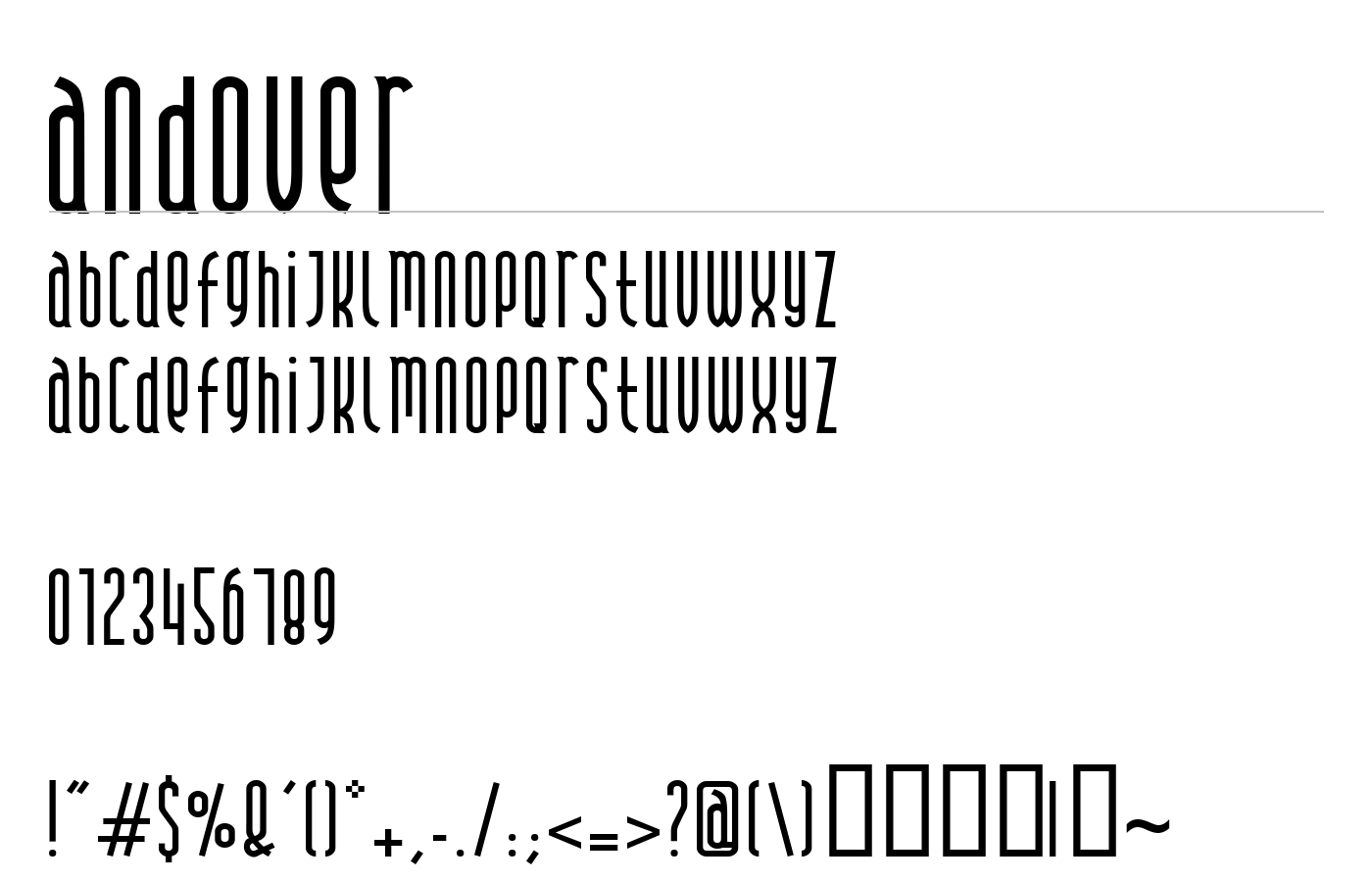
Andover is a tall, narrow sans serif font with a modern and minimalist style, characterized by its ultra-condensed letterforms and consistent stroke weight. It has a clean, elegant feel with unique character shapes that add subtle distinctiveness, making it ideal for striking headlines, branding, and editorial design where space is limited but impact is essential. This font works well for contemporary projects that aim to convey sophistication with a touch of individuality.
Andover Font
About Andover Font